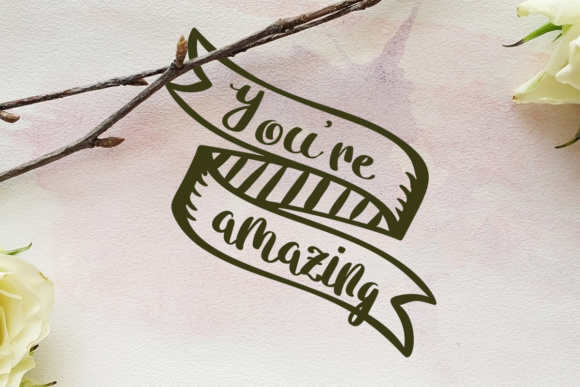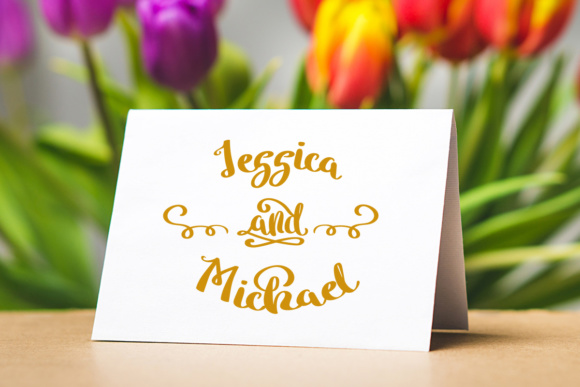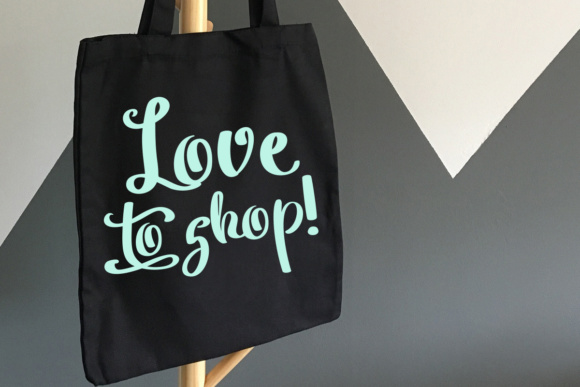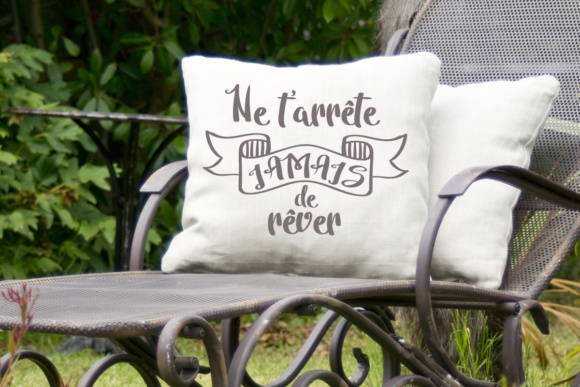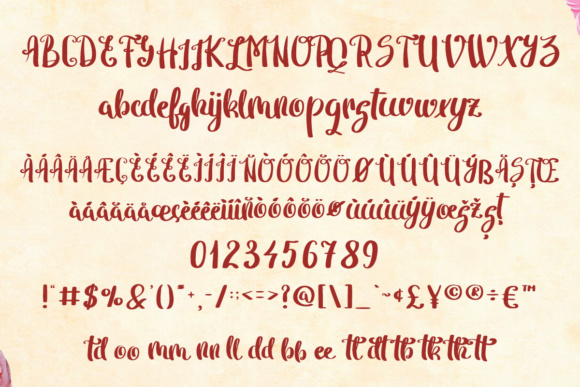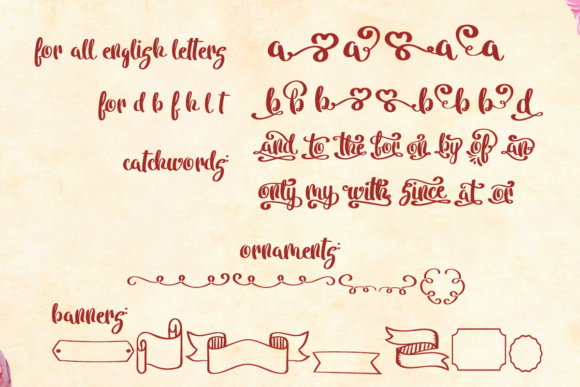
Introduction to Ineffable Font
Remember that moment when you were working on a creative project and you just couldn’t find the perfect font to bring your idea to life? The frustration, the search, the endless scrolling through design resources – it’s a familiar tale for many of us. But what if I told you that there’s a font that can make all the difference? Enter the Ineffable Font, a playful handdrawn font that’s about to become your new best friend.
With its stunning swashes, ornaments, and banners, the Ineffable Font is a game-changer for designers looking to add a personal touch to their projects. Whether you’re working on a branding project, a wedding invitation, or a social media graphic, this font is sure to elevate your design to the next level. And the best part? It’s available for free download, complete with a transparent background, making it easy to incorporate into your high-quality designs.
Key Features of Ineffable Font
- High-quality design resource ideal for creative projects, including posters, flyers, and brochures.
- Features a transparent background, allowing for easy layering and customization in design projects.
- Includes a range of font styles, from bold and playful to elegant and sophisticated, catering to diverse design needs.
- Designed with a high resolution of 300 DPI, ensuring crisp and clear text even at larger sizes.
- Unique, handcrafted design elements that set it apart from other free fonts, making it a standout choice for creative projects.
Honest Review: Ineffable Font
I recently had the chance to try out the Ineffable Font for a creative project and I’m excited to share my thoughts on it. As a designer, I’m always on the lookout for high-quality design resources that can elevate my work.
Here are some things that work well about the Ineffable Font:
- ✨ High-quality glyphs that render beautifully on both screen and print
- ✨ A wide range of weights and styles to suit different design needs
- ⚠️ The font does not support transparent background, which can be a drawback for some designers
- ⚠️ Limited support for non-Latin scripts, which may not be ideal for designers working on global projects
Overall, I think the Ineffable Font is a solid choice for designers looking for a high-quality, versatile font. While it may not be perfect, its strengths make it a valuable addition to any design resource library.
How to Use Ineffable Font
The Ineffable Font is a high-quality design resource perfect for your next creative project. With a transparent background, this font is ideal for overlaying on images or using as a standalone design element.
Tips for Getting the Most Out of Ineffable Font
To get the most out of Ineffable Font, experiment with different font sizes, colors, and alignments. You can also use the font in combination with other design elements to create a unique and eye-catching design.
Common Use Cases for Ineffable Font
The Ineffable Font is perfect for a variety of design projects, including blog posts, social media graphics, and marketing materials. You can also use the font to create custom logos or branding elements.